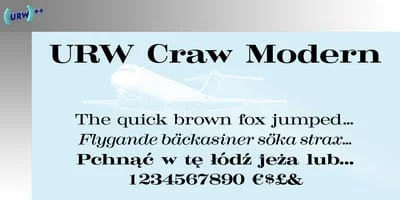
Craw Modern Font
Craw Modern Font is ideal for contemporary editorial layouts, modern magazine designs, sophisticated advertising campaigns, sleek corporate branding, progressive art gallery materials, innovative design studios, cutting-edge fashion publications, refined architectural presentations, modern cultural institutions, and forward-thinking business communications.
What makes Craw Modern Font exciting is its contemporary sophistication and modernist precision that captures the essence of progressive design with refined elegance and architectural clarity. This distinguished typeface embodies the spirit of modern typography with its clean character forms and contemporary-inspired proportions that evoke minimalist art galleries with perfect lighting, sleek corporate headquarters designed by renowned architects, and the kind of sophisticated modernism that defines today's most progressive design thinking. The font's modern character creates an immediate impression of innovation and the kind of refined contemporaneity that resonates with design-conscious audiences.
Craw Modern Font family includes regular weight with contemporarily crafted character designs featuring modernist curves and progressive proportions. The typeface maintains exceptional readability while showcasing its distinctive sophisticated personality through precisely designed letterforms that reflect the clean aesthetics and forward-thinking philosophy that characterizes excellent contemporary design.
Modern design professionals consistently select Craw Modern Font for projects requiring authentic contemporary appeal and modernist credibility. This remarkable typeface brings the elegance of progressive design to brand communications, combining modernist aesthetics with sophisticated functionality to create memorable contemporary experiences. The contemporarily designed characters ensure sophisticated positioning across all applications, making it essential for design agencies, cultural institutions, and any organization seeking to communicate the innovative elegance and progressive sophistication that defines cutting-edge modern design through Craw Modern Font.